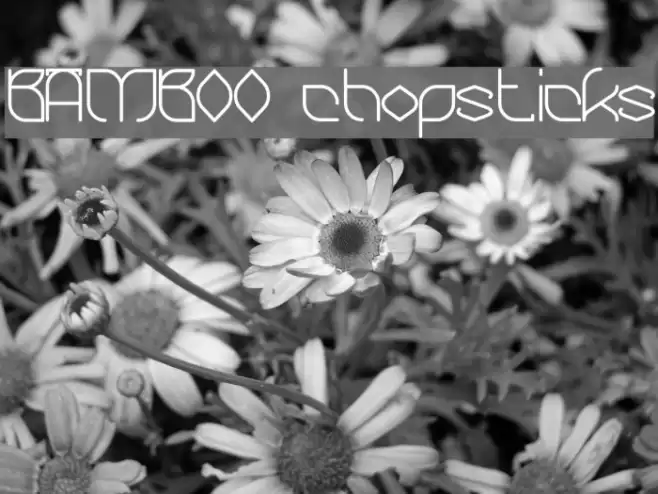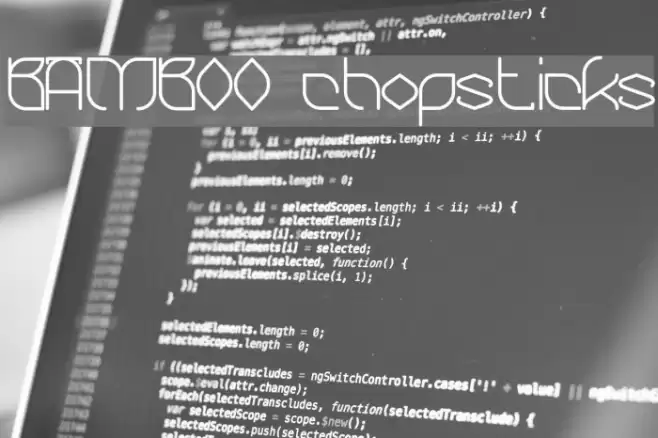
BAMBOO chopsticks Font
BAMBOO chopsticks Description
This font features a unique, geometric design with a modern and minimalist aesthetic. The characters are constructed with clean, straight lines and rounded corners, creating a futuristic and tech-inspired look. The uppercase and lowercase letters maintain a consistent style, with a focus on symmetry and balance. The numbers and special characters follow the same design principles, ensuring uniformity across all glyphs. This font's distinct appearance makes it suitable for creative and innovative projects that require a contemporary touch.
A geometric, modern font with clean lines and rounded corners, ideal for tech-inspired designs from Uncategorized fonts.
- Proposed Projects: Ideal for technology branding, modern art posters, innovative product packaging, and futuristic website headers.
- Overall Style: Futuristic, Minimalist